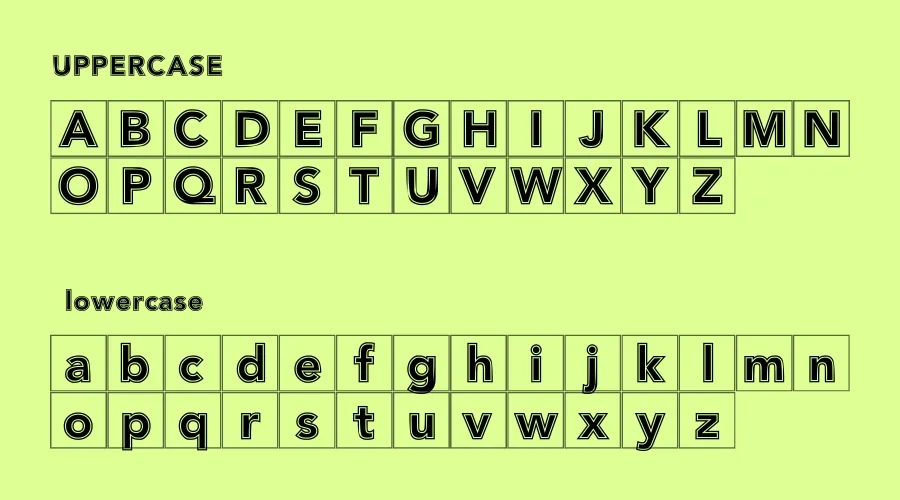
About Avenir 95 Custom Outer Line Font
Avenir 95 Custom Outer Line Font is published by Linotype foundry. There is no doubt that this font has a flexible character that gives the perfect design to any task. Many alternatives can be combined with this font.
This typeface is very popular among designers because of its smooth and unique shape. This is a unique typeface that people can use for their private projects without paying any cost.
All multinational organizations have used this font for creating various tasks. Projects that need classy designs can also try this style. This font can be used in both digital and print media projects. You can easily add design by combining this font with other styles.